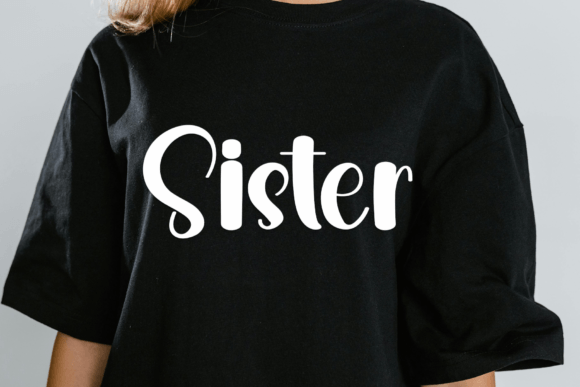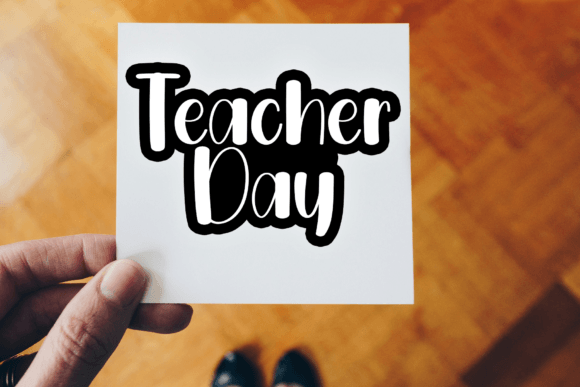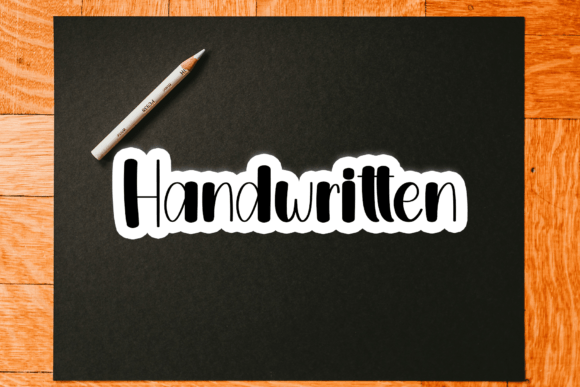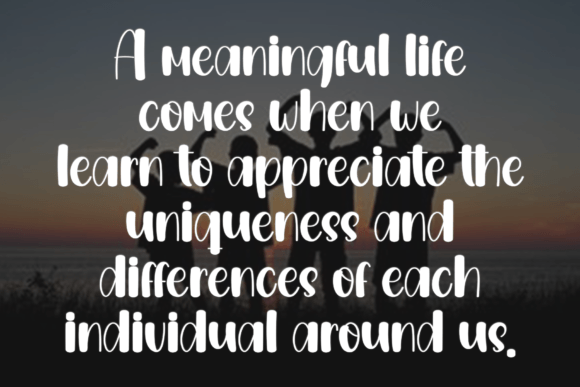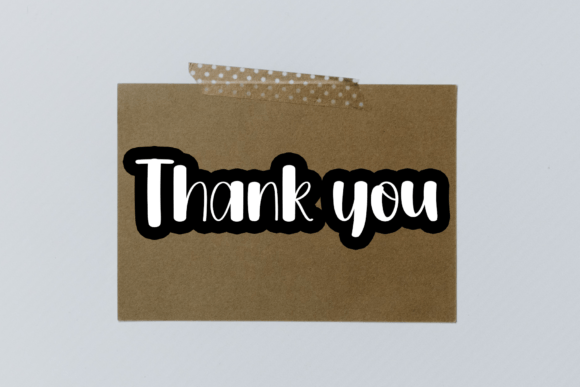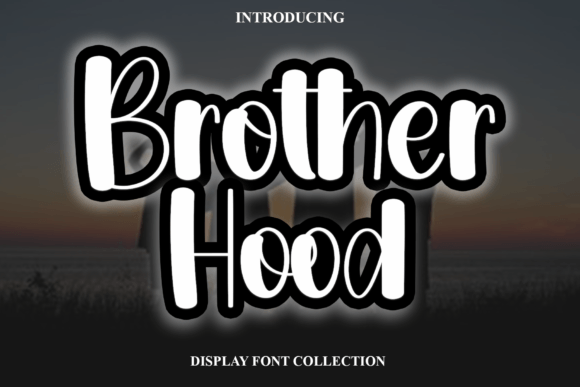
Introducing Brother Hood Font: Elevate Your Designs with Timeless Elegance
In the realm of typography, few fonts manage to capture the essence of classic calligraphy while still exuding a modern vibe. Brother Hood Font is one such gem that seamlessly blends traditional elegance with contemporary flair. This stylish handwritten font is designed to bring an impeccable form and a balanced variety to your projects, making it a versatile choice for designers and crafters alike.
The Inspiration Behind Brother Hood
Brother Hood Font draws its inspiration from timeless classic calligraphy, a style that has been revered for centuries for its beauty and sophistication. The creators of Brother Hood have skillfully taken the essence of this traditional art form and infused it with a contemporary atmosphere, resulting in a font that is both classic and modern.
The inspiration behind Brother Hood is rooted in the desire to create a font that embodies the perfect balance of elegance and modernity. By studying the intricate details of classic calligraphy, the designers aimed to craft a font that not only pays homage to the past but also meets the demands of modern design.
Key Features of Brother Hood Font
So, what makes Brother Hood Font stand out from the rest? Here are some of its key features:
• Stylish Handwritten Design: Brother Hood boasts a stylish handwritten design that adds a personal touch to any project.
• Contemporary Atmosphere: Despite being inspired by classic calligraphy, Brother Hood has a distinctly modern feel to it.
• Impeccable Form: The font’s impeccable form ensures that it remains legible and visually appealing, even at smaller sizes.
• Balanced and Varied: Brother Hood offers a range of variations, allowing designers to create unique and engaging text.
Uses of Brother Hood Font
Brother Hood Font is incredibly versatile and can be used in a variety of projects, including:
• Branding and Logo Design: The font’s elegant and modern design makes it perfect for creating sophisticated brand identities.
• Wedding and Event Stationery: Brother Hood’s classic feel makes it an excellent choice for designing wedding invitations, menus, and other event materials.
• Packaging Design: The font’s stylish and contemporary design makes it ideal for packaging products that require a touch of elegance.
• Digital Media: Brother Hood can be used in digital media, such as social media graphics, blog posts, and website headers.
Why Choose Brother Hood Font?
With so many fonts available, why should you choose Brother Hood? Here are a few compelling reasons:
• Unique and Memorable: Brother Hood’s distinctive design ensures that your projects stand out from the crowd.
• Easy to Read: The font’s impeccable form and balanced design make it easy to read, even at smaller sizes.
• Versatile: Brother Hood can be used in a wide range of projects, from branding and packaging to digital media.
Brother Hood Font is a stylish and versatile font that offers the perfect blend of classic elegance and modern sophistication. Its impeccable form, balanced design, and range of variations make it an excellent choice for designers and crafters looking to elevate their projects. Whether you’re working on branding, packaging, or digital media, Brother Hood is sure to make a lasting impression.